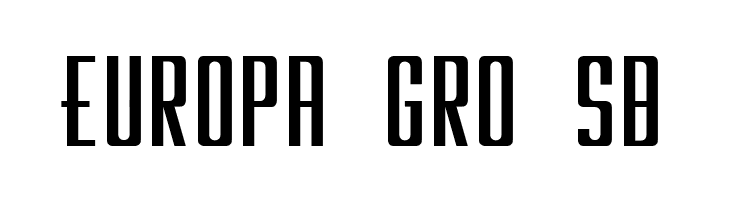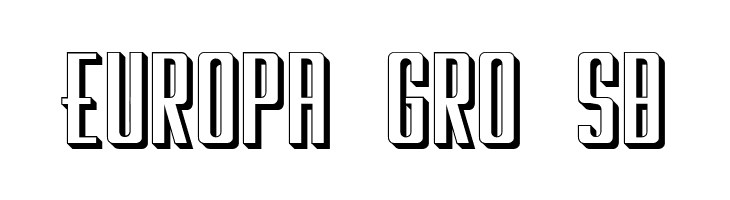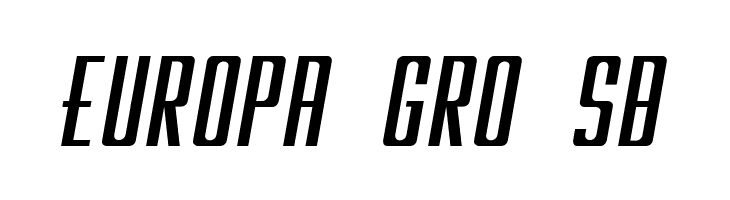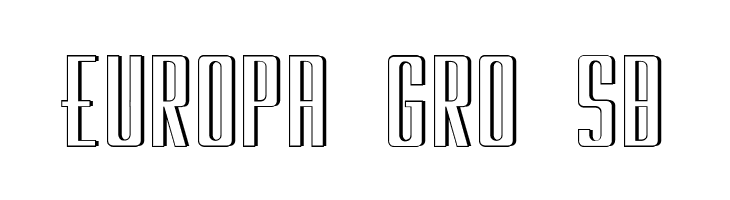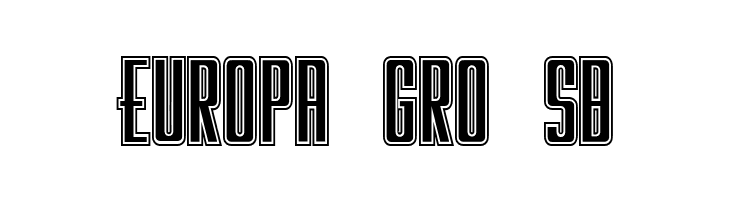
A modern, geometric font with elongated, outlined characters.
A bold, 3D font with sharp edges and a modern style.
A bold, elongated font with a modern and authoritative style.
A bold, italicized font with elongated, narrow characters and a modern, dynamic style.
A bold, double-line outlined font with tall, narrow characters for modern designs.
A sleek, elongated italic font with outlined characters and a modern aesthetic.
A modern, clean sans-serif font with uniform stroke width and excellent readability.
A sleek, modern italic font with clean lines and smooth curves.
A bold, playful font with outlined, rounded characters and medium contrast.